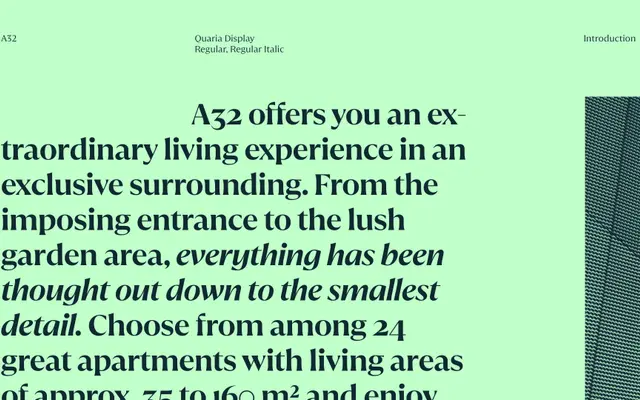
Quaria Display
Studio Rene Bieder · René Bieder
Quaria Display specimen from Studio Rene Bieder
A display serif from René Bieder offered in five weights with matching italics and an extensive suite of OpenType alternates for key characters.
Quaria Display sits at the heavier end of a two-family system alongside Quaria Text, with the display cut optimised for larger settings. Five weights from Regular to ExtraBold each carry an italic, and the OpenType feature set includes small capitals, oldstyle figures, fractions and individual alternates for characters including a, g, y, Q and the ampersand. The breadth of alternates gives designers meaningful control over personality at headline sizes.
Named as a display typeface by the foundry itself, with a companion text family (Quaria Text) suggesting optical size differentiation. The styling, with numerous alternates for distinctive characters, points to a display-oriented serif.